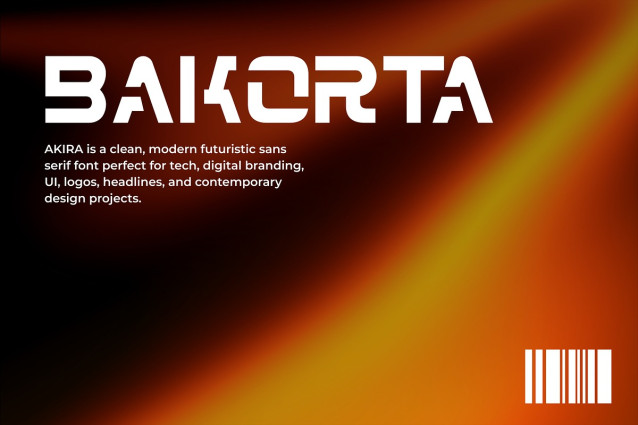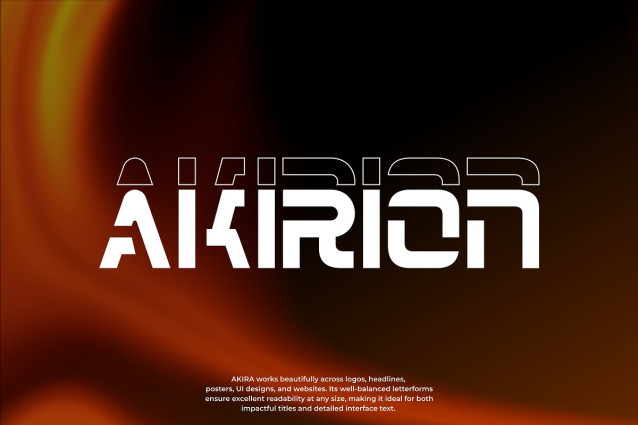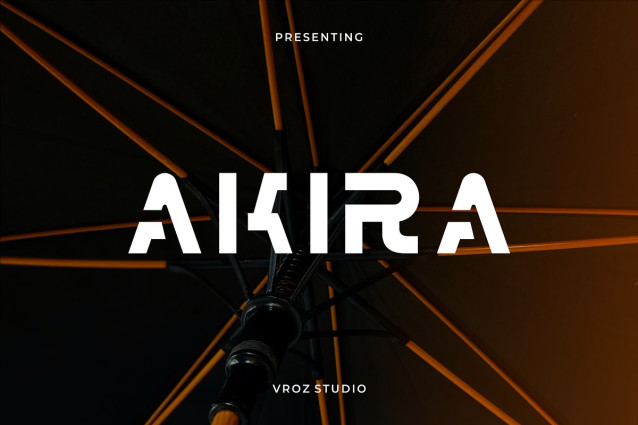
Akira Font
Akira Font is a modern futuristic sans serif font with smooth curves and rounded letterforms. Designed to balance technology and friendliness, this font delivers a clean, soft, and contemporary look while maintaining a strong modern character.
With its flowing curves and consistent proportions, AKIRA offers excellent readability and visual harmony. It works perfectly for logos, branding, UI design, apps, websites, posters, and digital products that need a modern yet approachable aesthetic.
Ideal for tech brands, startups, creative studios, and modern interfaces, AKIRA brings a sleek futuristic feel with a warm and refined touch.